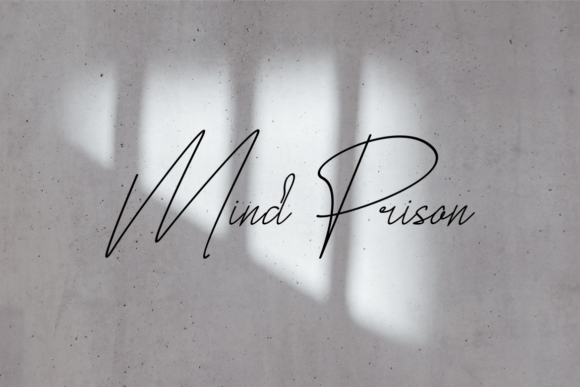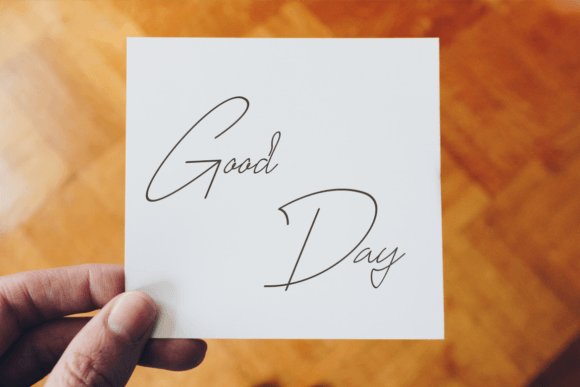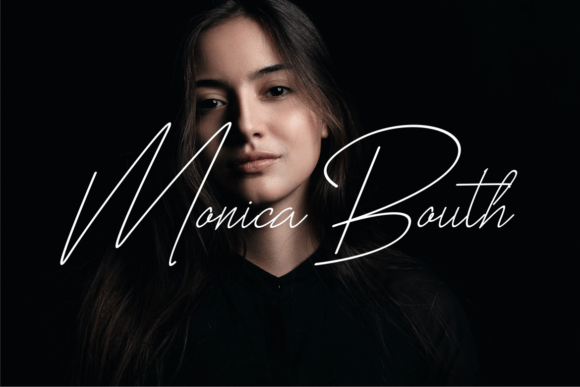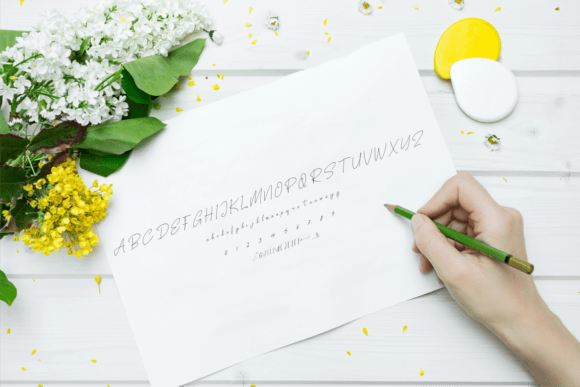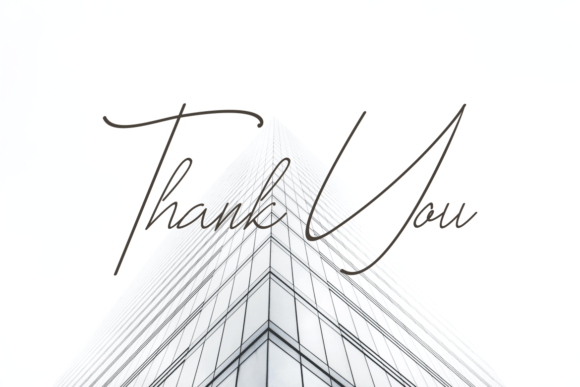
Dacorinihe Font
About Dacorinihe Font
Dacorinihe font is an exquisite handwritten script designed with great care and skill to become a favorite among designers and creatives. This font blends timeless calligraphic elegance with a contemporary and fresh look, making it a versatile choice for a wide variety of design projects. Whether you want to create stunning logos, elegant wedding invitations, or eye-catching branding materials, Dacorinihe offers a sophisticated and stylish solution.
Timeless Calligraphic Elegance
Inspired by classic calligraphy, Dacorinihe font features graceful strokes and refined letterforms that evoke a sense of luxury and sophistication. The font’s carefully crafted lines capture the beauty and fluidity of hand-drawn scripts, allowing you to add a personal and artistic touch to your designs. Its subtle yet striking calligraphic influences make Dacorinihe ideal for projects that require a classy and polished appearance.
Modern and Fresh Design
Despite its classic roots, Dacorinihe maintains a fresh and modern vibe that fits perfectly with today’s design trends. The font balances tradition and innovation, ensuring it looks current and relevant across multiple platforms and media. This contemporary feel makes it suitable for use in digital projects such as social media graphics, websites, and online marketing, as well as in print materials.
Versatile Usage
Dacorinihe font is perfect for various applications including:
• Branding and Logos: Create unique and memorable brand identities with its elegant script style
• Wedding Invitations: Add a romantic and refined look to invitations, save-the-date cards, and other wedding materials
• Greeting Cards: Perfect for heartfelt messages, holidays, and special occasions
• Packaging Design: Use it for boutique products, cosmetics, and luxury goods to convey sophistication
• Social Media and Marketing: Enhance your posts, ads, and promotional graphics with a stylish font
• Posters and Headlines: Its clear yet decorative nature makes it stand out in titles and headers
Why Choose Dacorinihe Font?
Dacorinihe font stands out because it seamlessly combines the charm of classical calligraphy with the vibrancy of modern design. Its exquisite style brings elegance without sacrificing readability, allowing it to work well in both display and text settings. Whether you are a professional designer or a creative enthusiast, this font offers a powerful tool to elevate your projects and make them truly impressive.
Creative Tips for Using Dacorinihe
• Use it prominently for titles and logos to maximize its impact
• Pair with clean sans-serif fonts to balance decorative elements
• Experiment with color palettes that emphasize luxury, such as golds, deep blues, and rich blacks
• Take advantage of alternate glyphs and ligatures for a unique handcrafted effect